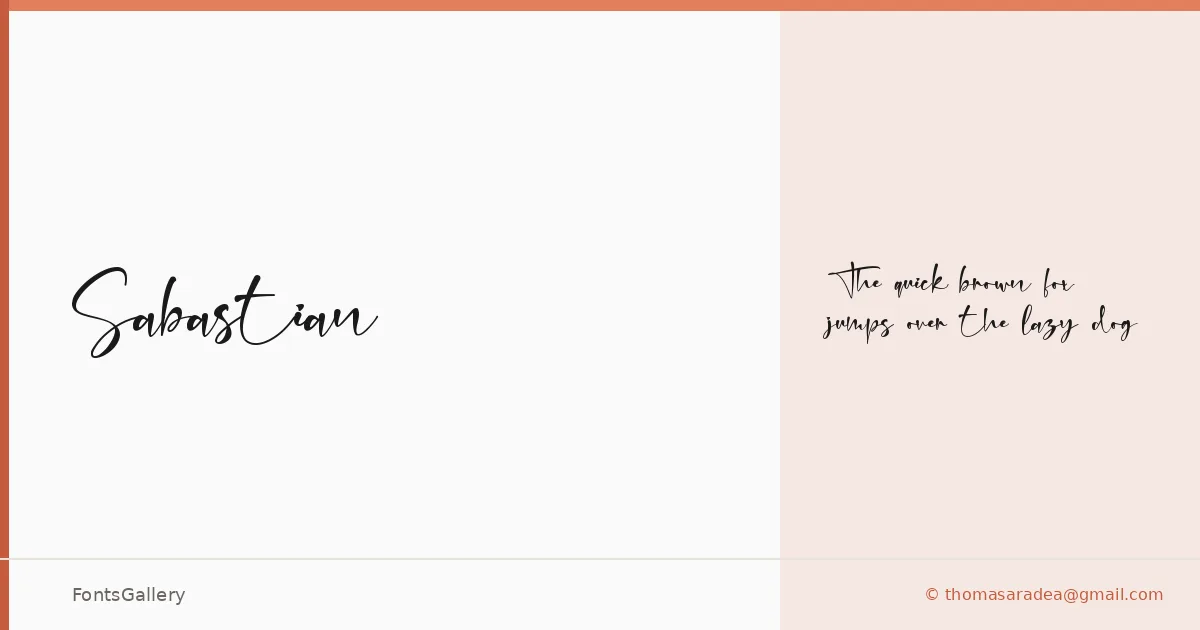
There is a particular softness to the way this script moves — each letter carrying just enough forward lean to feel handwritten without losing its composure. Created by Letterara, Sabastian arrives as a single Regular weight, a focused offering that asks you to work with it rather than around it. The letterforms lean into classic calligraphic tradition, with flowing connections and refined stroke contrast that give it an unmistakably romantic character.
This is a script face built around elegance and restraint — the kind of hand that feels at home on something meant to be kept. The mood sits squarely in classic and romantic territory, with curves that feel deliberate rather than decorative. Delivered as a TTF file with Latin language support, it carries the formal grace you would expect from pointed-pen calligraphy translated carefully into type. The single Regular cut means its personality is fully committed: there is no condensed version hedging its bets, no bold variant softening the impact.
Wedding stationery, invitation cards, and greeting cards are the natural territory here — anywhere that a sense of occasion needs to be established quickly through type alone. It also works well as a logotype element or branding signature where a handcrafted, romantic sensibility is the point. For pairing, the contrast of its calligraphic flow against the clean geometry of Helvetica or the editorial warmth of Canela creates an effective balance; ABC Arizona, (AH) Manal, and Anglecia Pro are also listed as compatible companions.